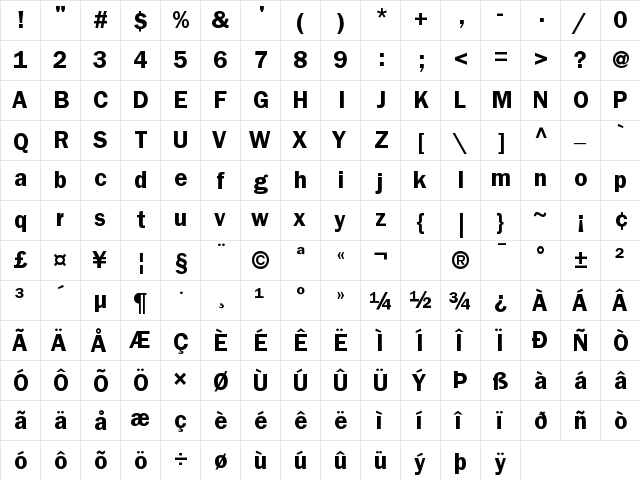
UnGraphic Bold
| Foundry | Korean Tex Users Group |
| Designer | Koaunghi Un |
Design Context for UnGraphic Typeface
UnGraphic is a composed and adaptable typeface that performs quietly and consistently across a wide range of design contexts. The heavy weight commands attention and anchors typographic hierarchies.